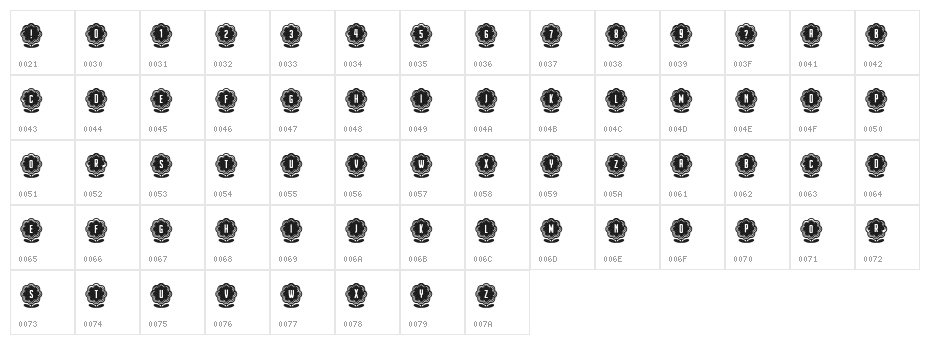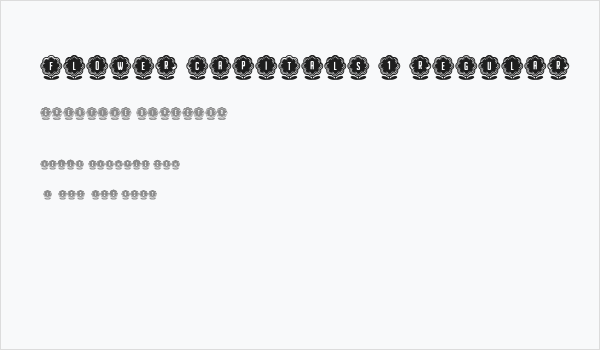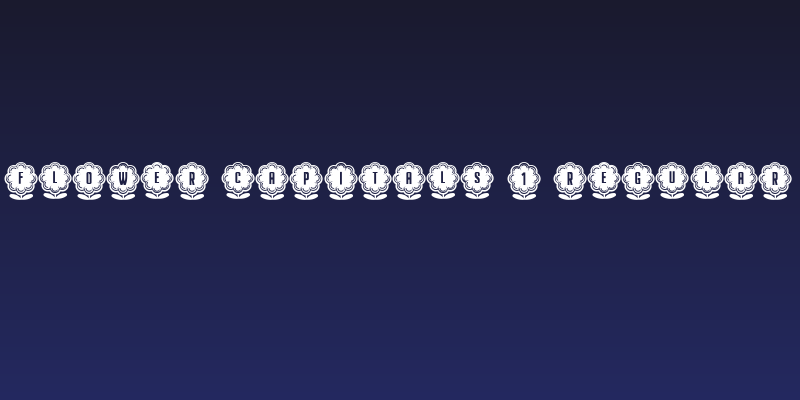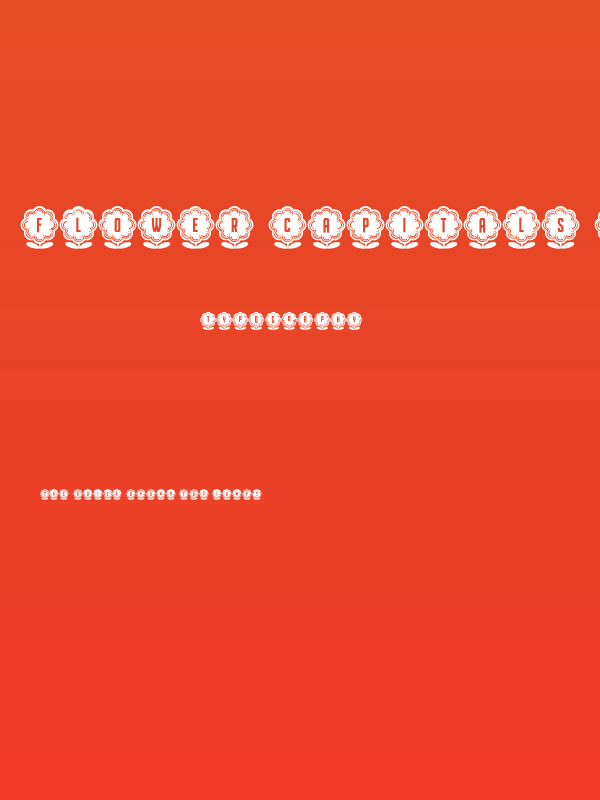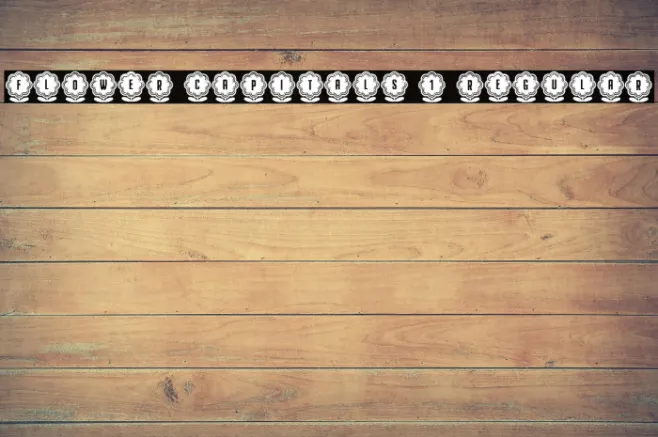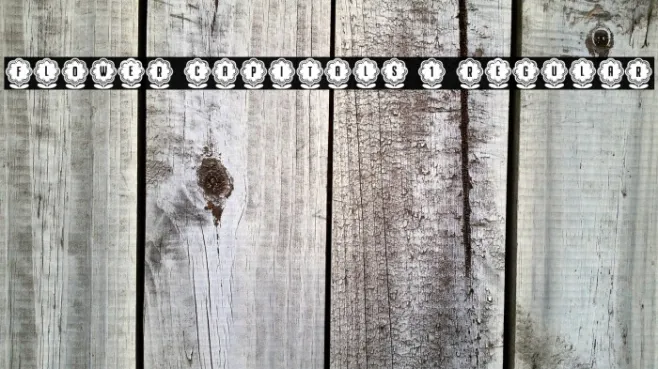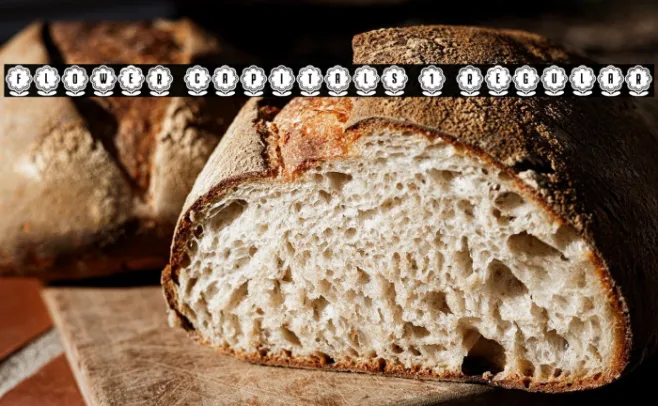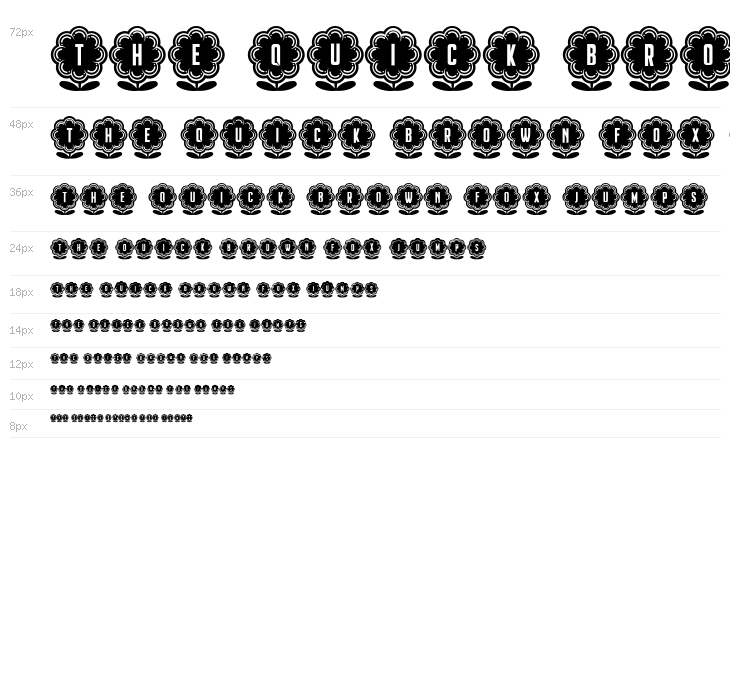
Flower Capitals 1 Regular Font
Flower Capitals 1 Regular Description
This decorative font features characters encased within stylized flower shapes, creating a playful and whimsical appearance. Each letter and number is centered within a bold, symmetrical floral design, making it highly distinctive and eye-catching. The font is uniform in its presentation, with each character consistently framed by the floral motif, which adds a layer of visual interest and complexity. The characters themselves are bold and clear, ensuring readability despite the intricate surrounding design. This font is ideal for projects that require a touch of elegance and creativity, such as invitations, greeting cards, or decorative headings. Its unique style makes it stand out, providing a memorable visual impact.